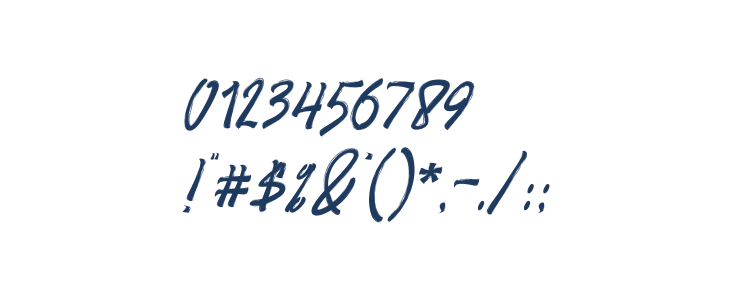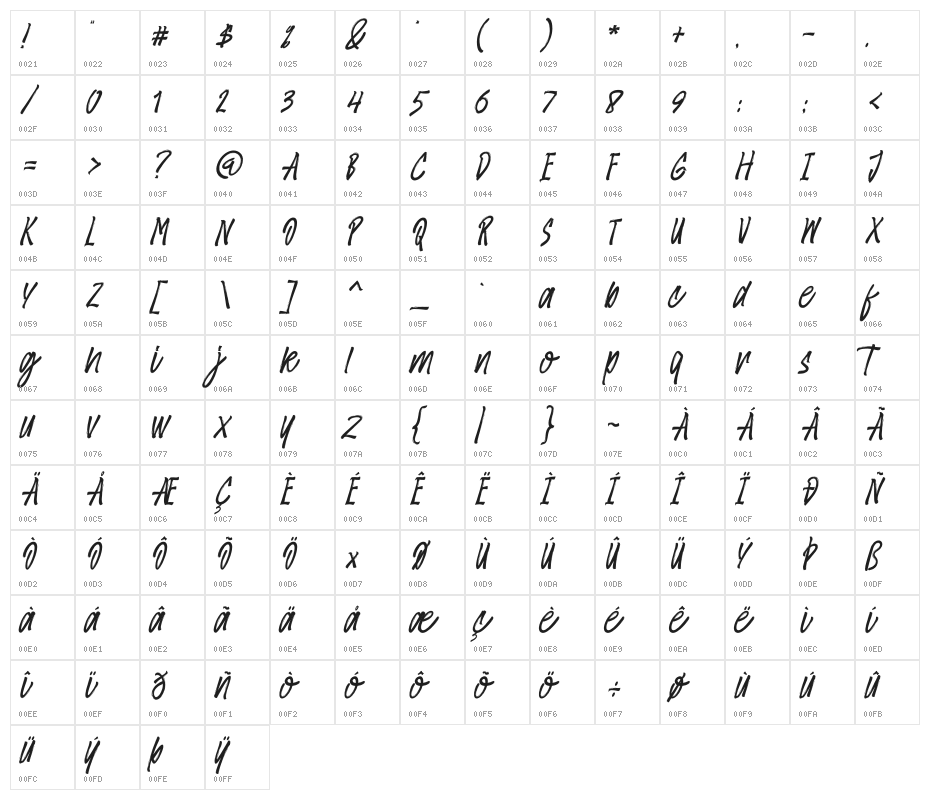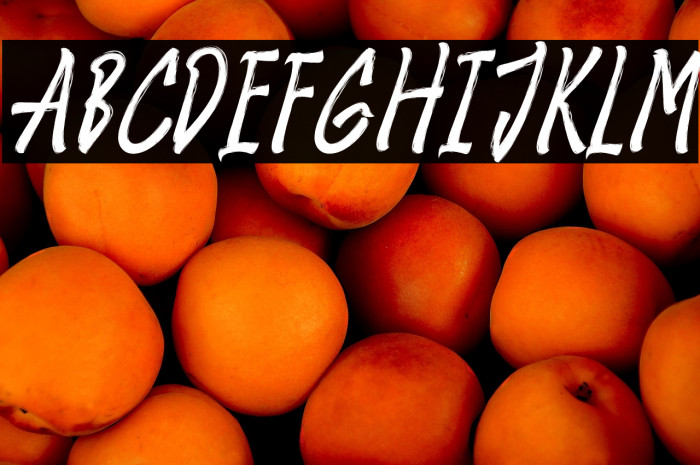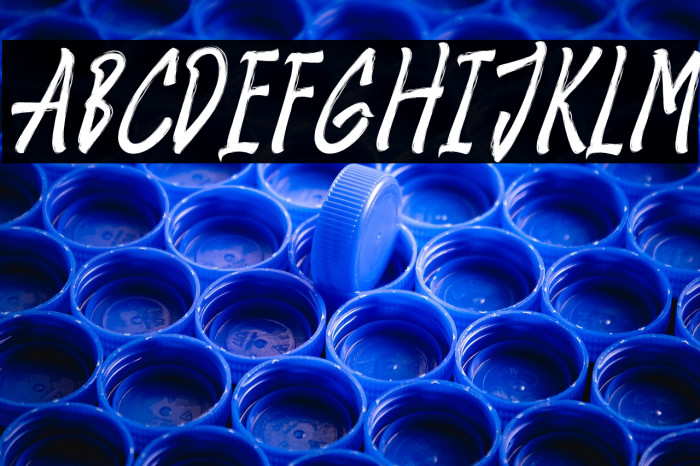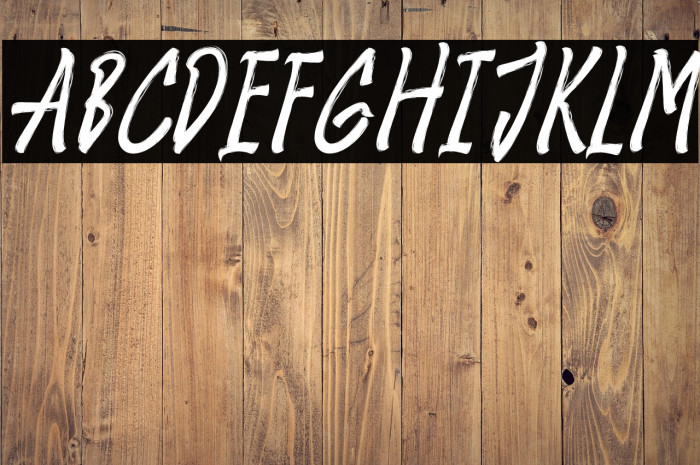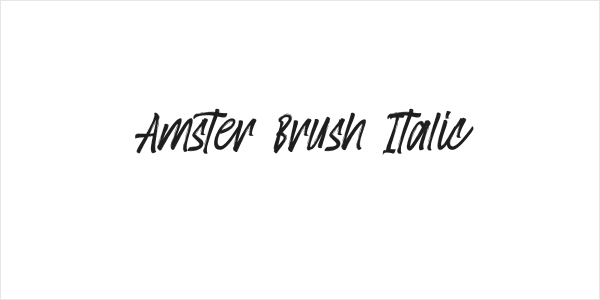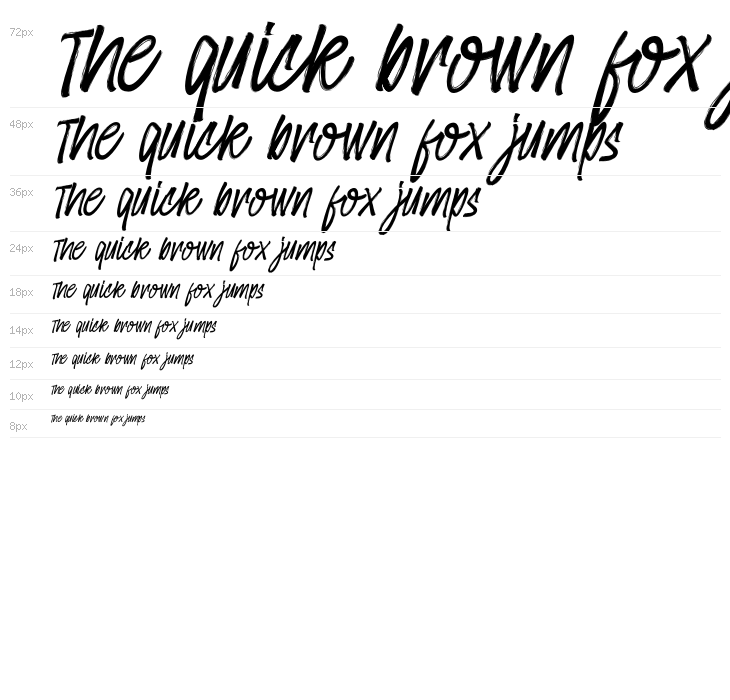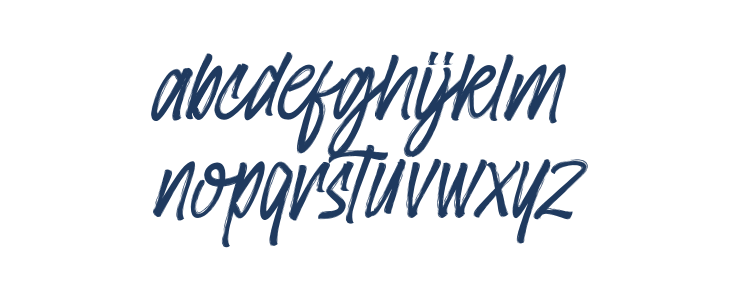
Amster Brush Italic Font
Amster Brush Italic Description
This font exudes a dynamic and energetic style, characterized by its brush-like strokes that convey a sense of movement and fluidity. The uppercase and lowercase letters are crafted with a natural, hand-drawn appearance, giving it an authentic and artistic feel. The numbers and special characters maintain the same lively aesthetic, ensuring consistency across all elements. The strokes vary in thickness, adding a touch of spontaneity and vibrancy to the overall design. This font is perfect for projects that require a personal and creative touch, making it ideal for artistic and expressive applications.
| Proposed Projects | Ideal for branding, posters, invitations, and artistic projects that require a personal touch. |